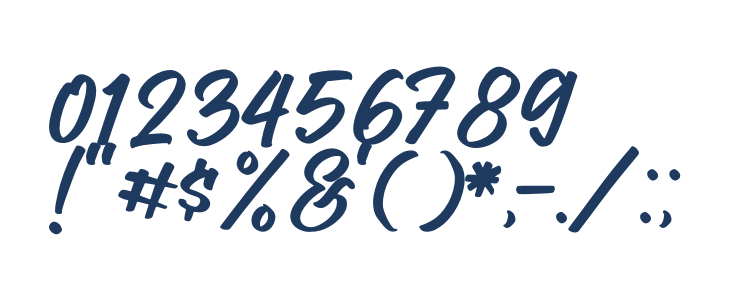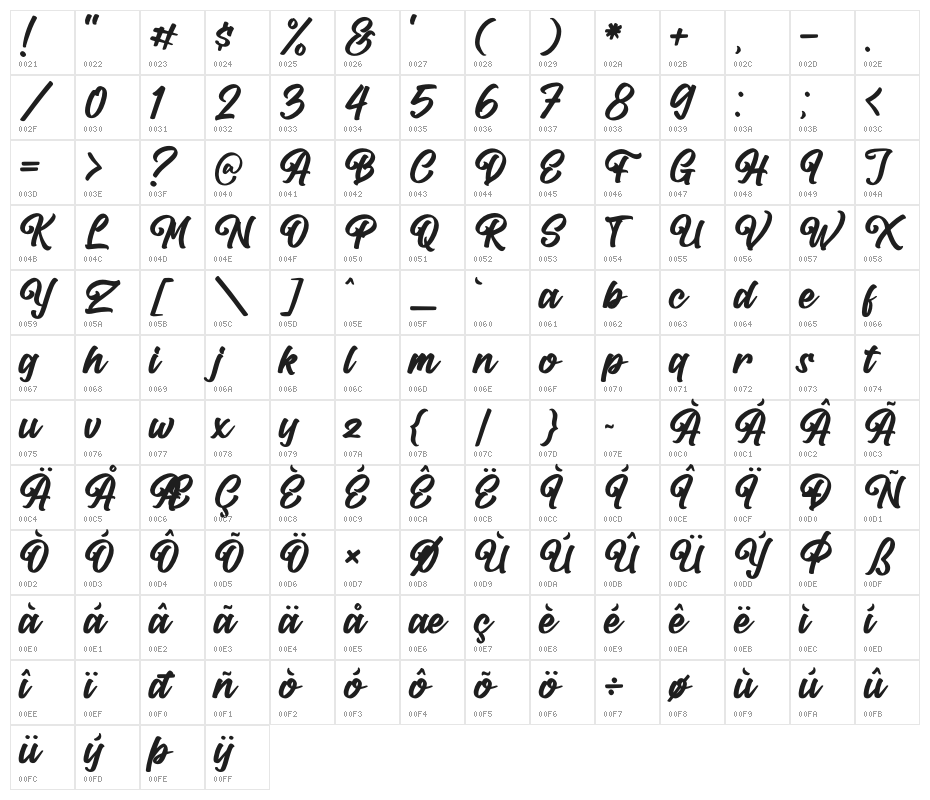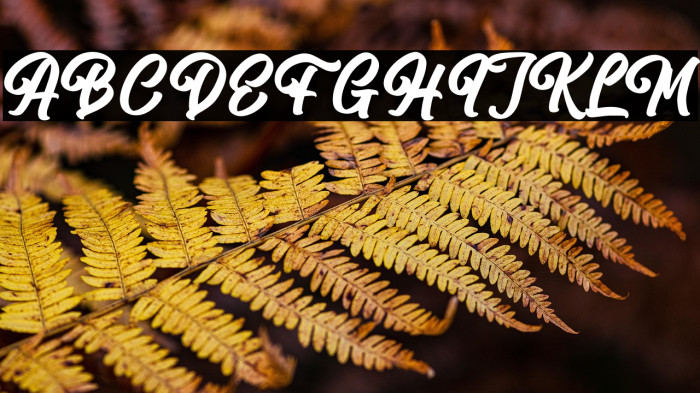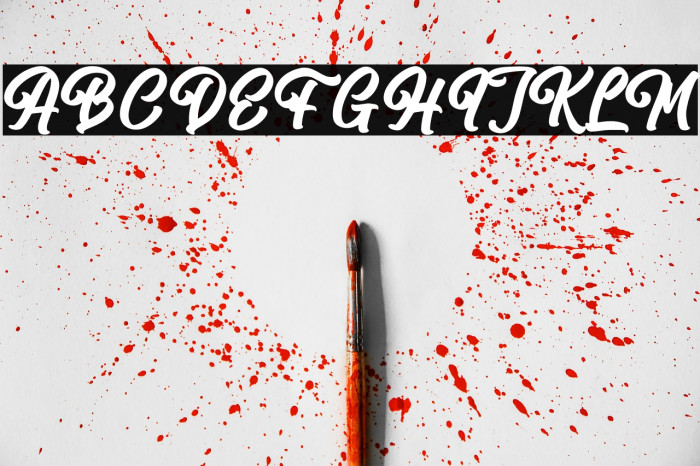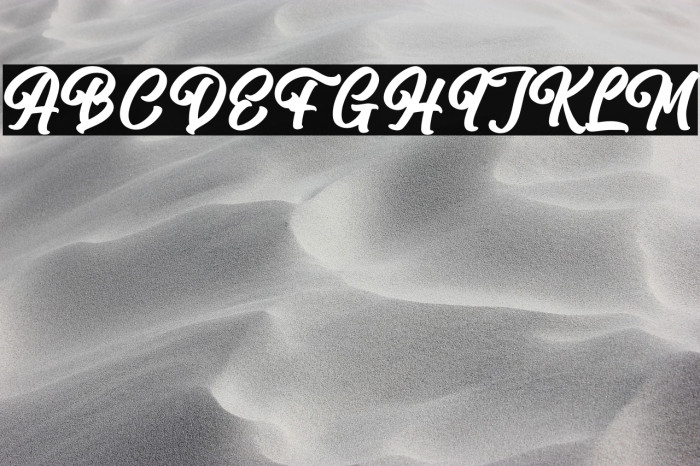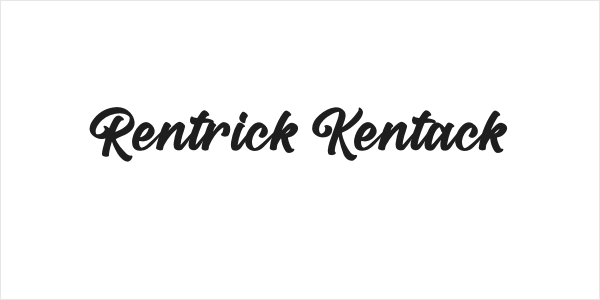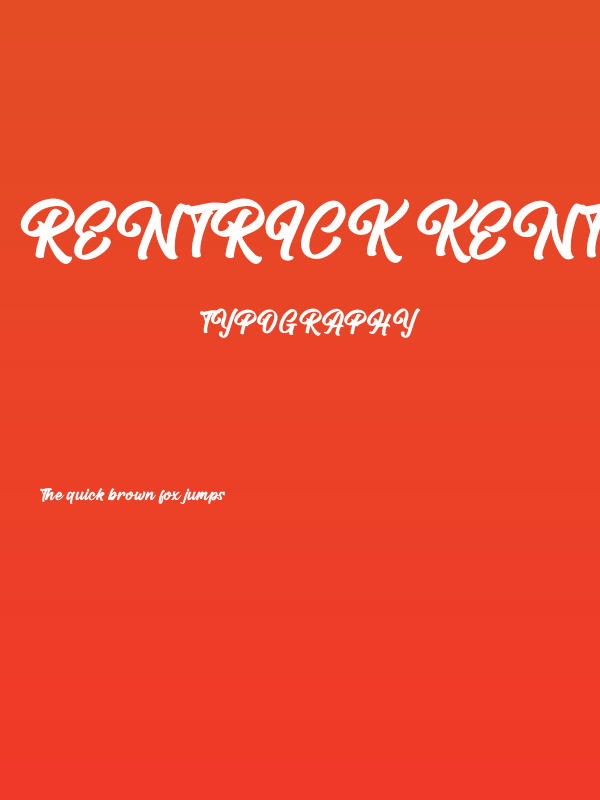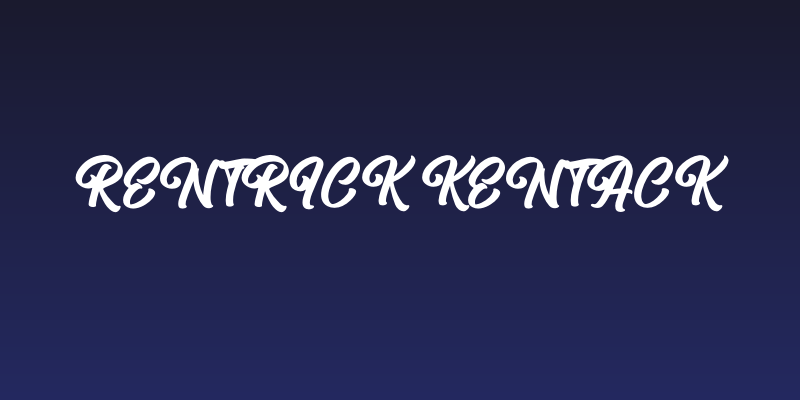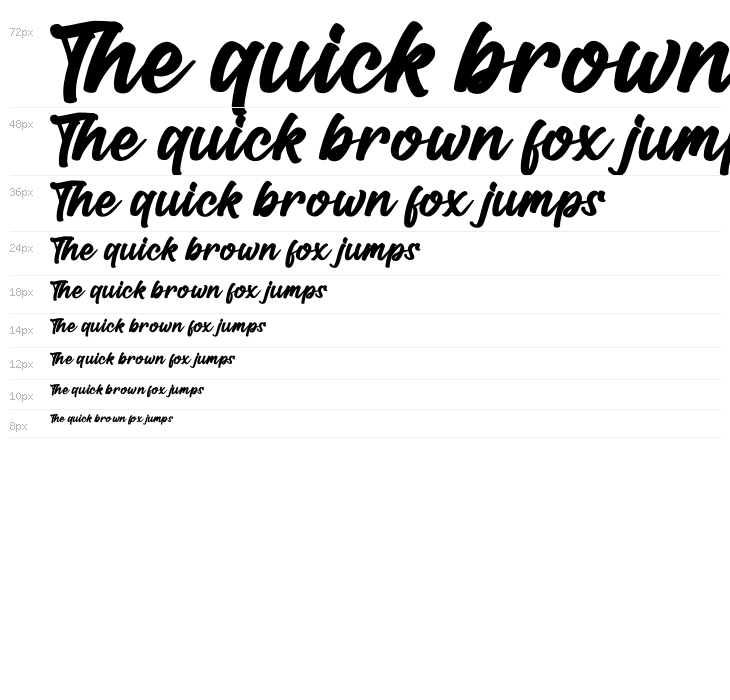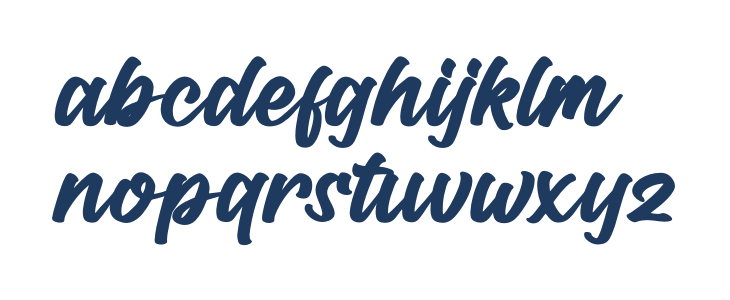
Rentrick Kentack Font
Rentrick Kentack Description
This font features a bold and dynamic script style, characterized by its fluid, cursive strokes that convey a sense of elegance and movement. The uppercase letters are slightly more ornate, with sweeping curves and loops that add a touch of sophistication. The lowercase letters maintain a consistent flow, enhancing readability while preserving the font's artistic flair. Numbers and special characters are designed to match the overall aesthetic, ensuring a cohesive look across all text elements. The font's bold weight and medium contrast make it suitable for eye-catching displays and creative projects.